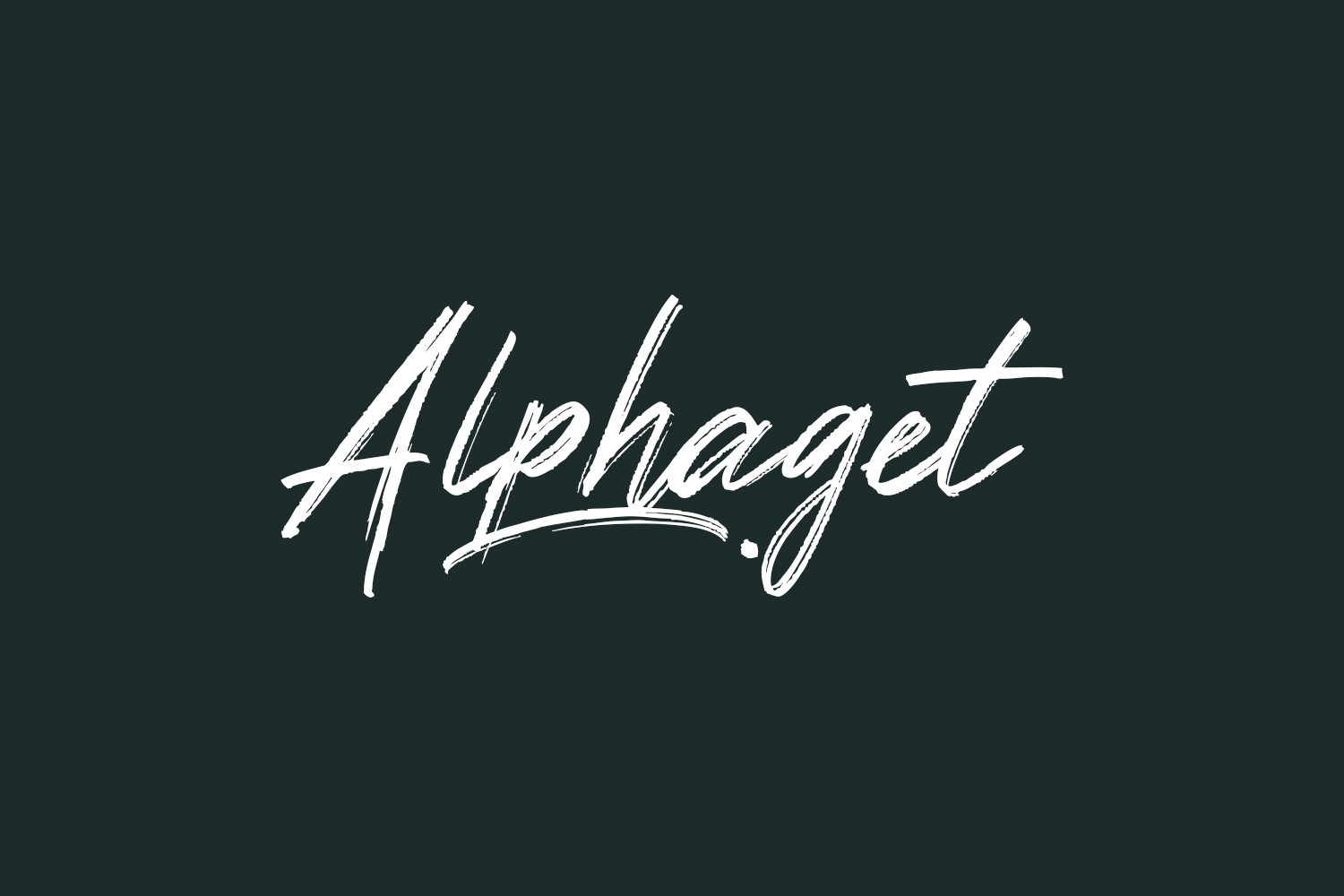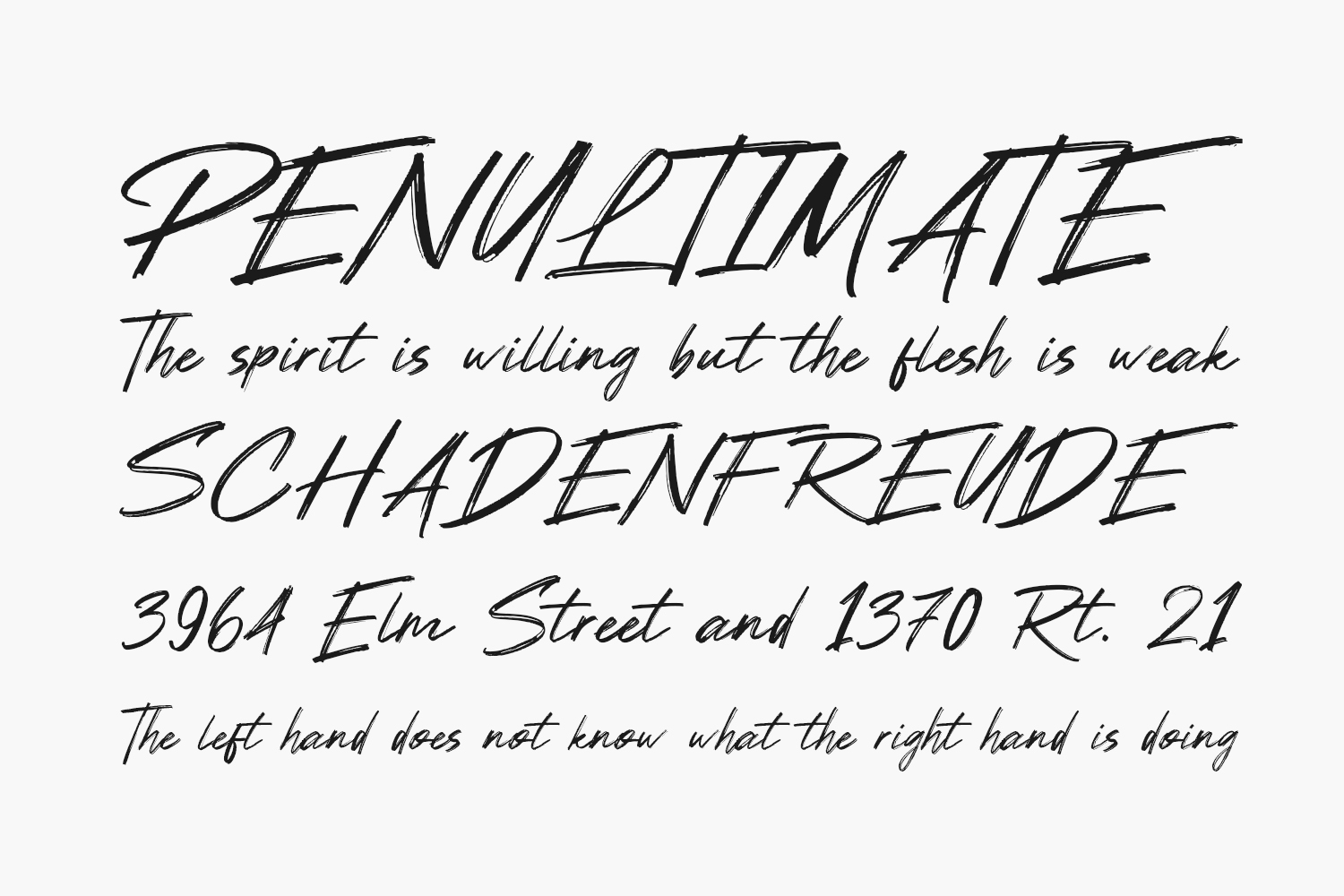
Embrace the allure of Alphaget Free Font, a contemporary brush script font designed to elevate your design projects to the next level. This versatile font is a perfect choice for a wide range of applications, including posters, logos, magazines, book covers, banners, and more! Don’t miss the chance to get your hands on this amazing font and create lovely designs that will leave a lasting impression. Alphaget’s adaptability is unmatched, making it a seamless match for an incredibly large set of projects. Add it to your creative ideas and watch how it effortlessly makes them stand out with its captivating and modern flair. Alphaget Free Font is free for personal use only. Please purchase the full version for commercial use.